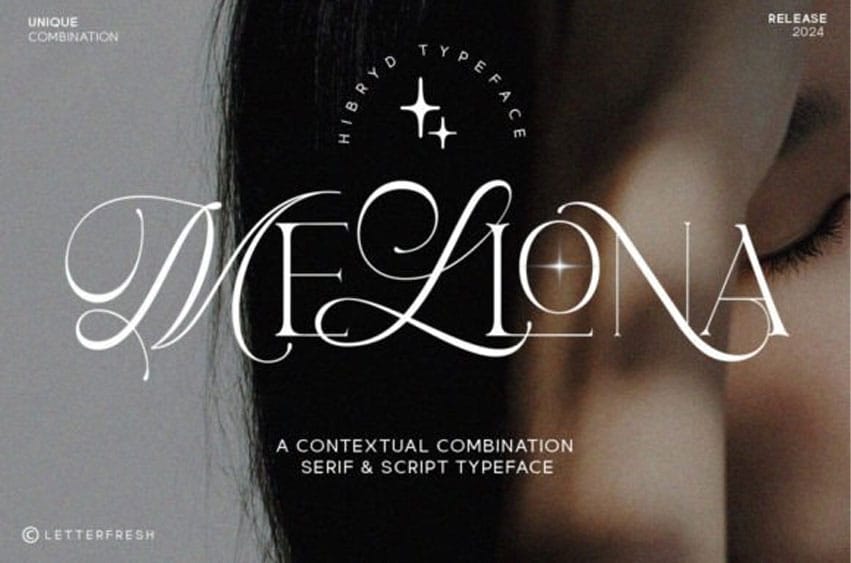
Mellona Font is a stylish calligraphic serif font that embodies elegance and sophistication. Its graceful strokes and flowing curves evoke a sense of refinement and beauty, making it ideal for luxury branding, wedding invitations, and editorial design.
Mellona adds a touch of class and sophistication to any project.